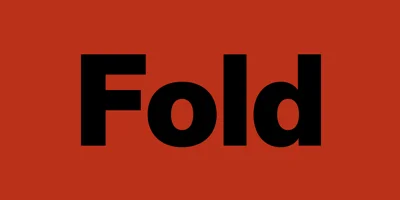
Fold Grotesque Font
Fold Grotesque Font is ideal for avant-garde design studios, experimental art installations, contemporary architecture firms, modernist gallery exhibitions, cutting-edge fashion brands, innovative tech startups, progressive cultural centers, and boundary-pushing creative agencies.
This font is exciting because it challenges conventional typography with bold, unconventional letterforms that fold traditional design rules into new geometric possibilities and creative expressions. The Fold Grotesque Font embodies the spirit of design revolution and artistic experimentation, transforming ordinary text into striking visual statements that question norms and inspire fresh perspectives on visual communication.
The Fold Grotesque Font family includes experimental variations such as Regular, Bold, Light, Angular, Italic, Twisted, Condensed, and Extended versions, providing avant-garde designers with comprehensive tools to create revolutionary typography that pushes boundaries and challenges conventional design thinking across all creative applications.
Break design boundaries with Fold Grotesque Font that brings experimental edge to every avant-garde design project. This provocatively crafted typeface combines artistic rebellion with practical functionality, making it perfect for creative agencies, experimental artists, and brands that refuse to follow conventional design rules. The font's unconventional character design ensures your message feels innovative and boundary-pushing while maintaining excellent readability across all applications. Whether you're developing cutting-edge brand identities, creating experimental art pieces, or designing materials that need to challenge visual expectations, Fold Grotesque Font delivers the revolutionary typography that resonates with audiences seeking authentic innovation and creative disruption. Its versatile design works boldly across digital and print media while preserving the experimental spirit that makes avant-garde communications feel genuinely groundbreaking and capable of inspiring the kind of creative thinking that transforms industries and redefines what's possible in visual design.